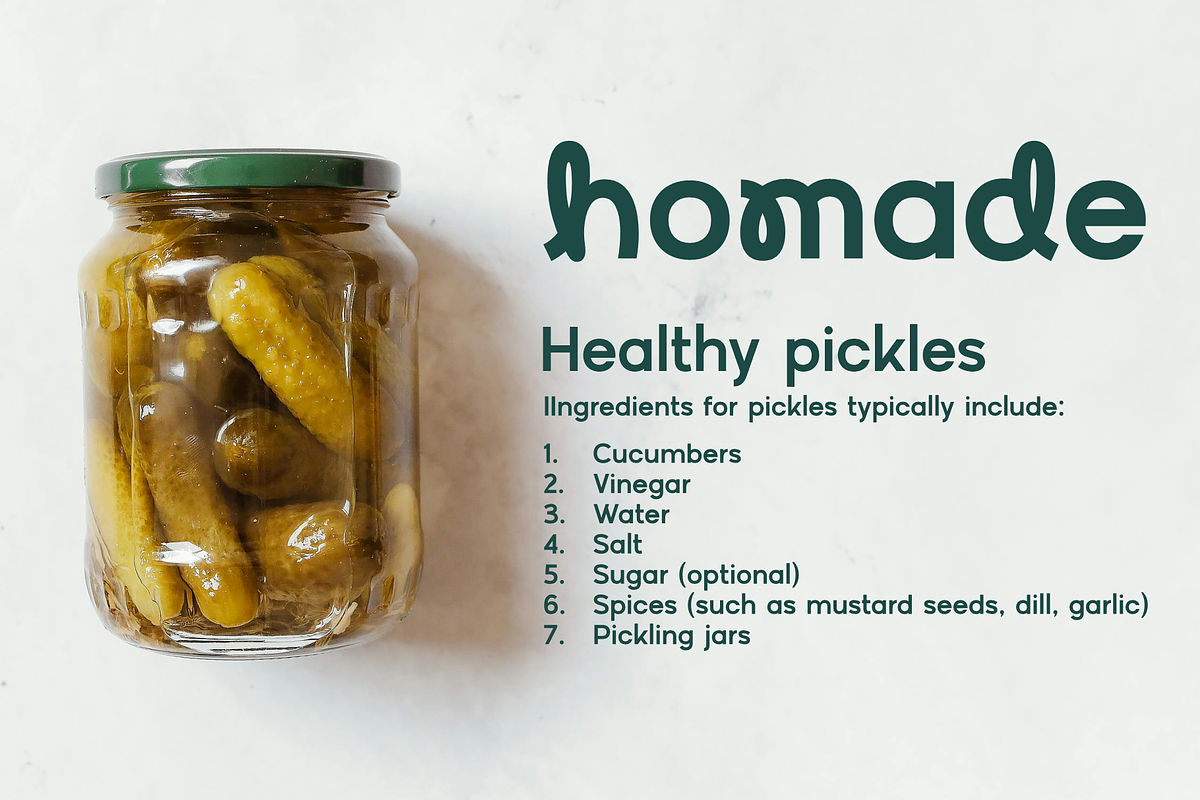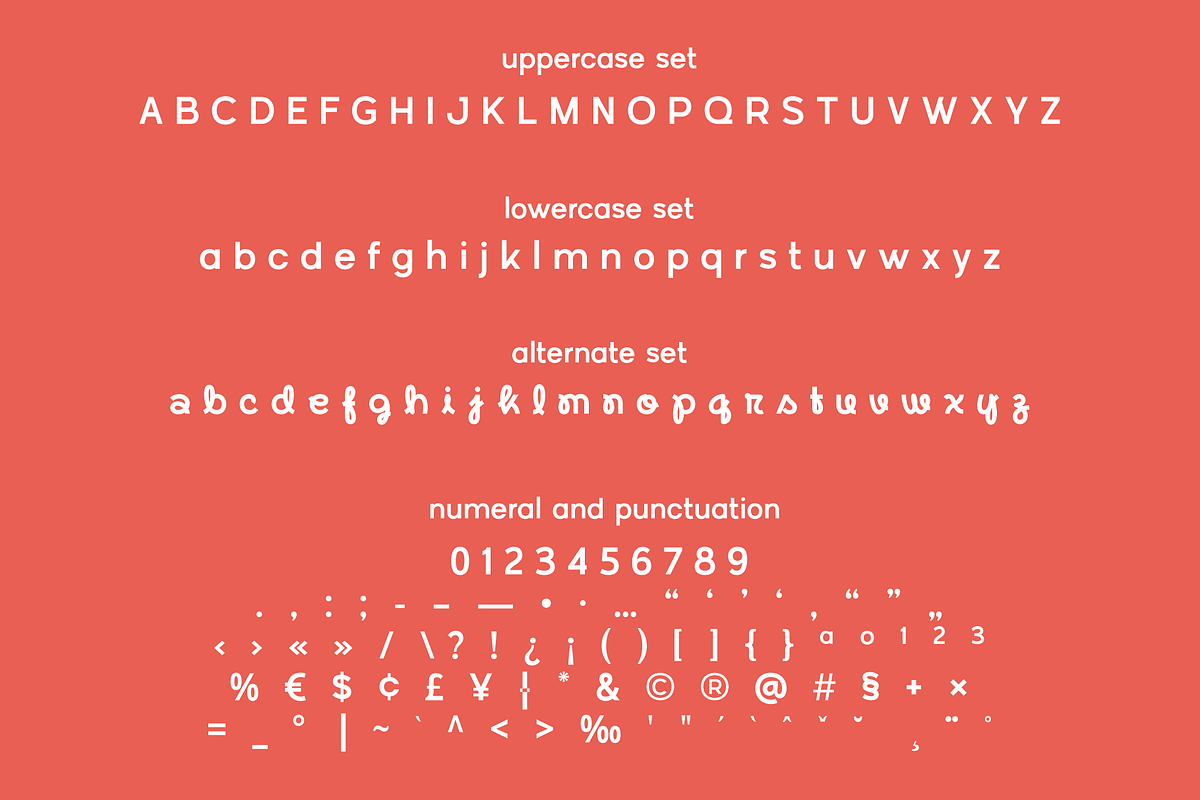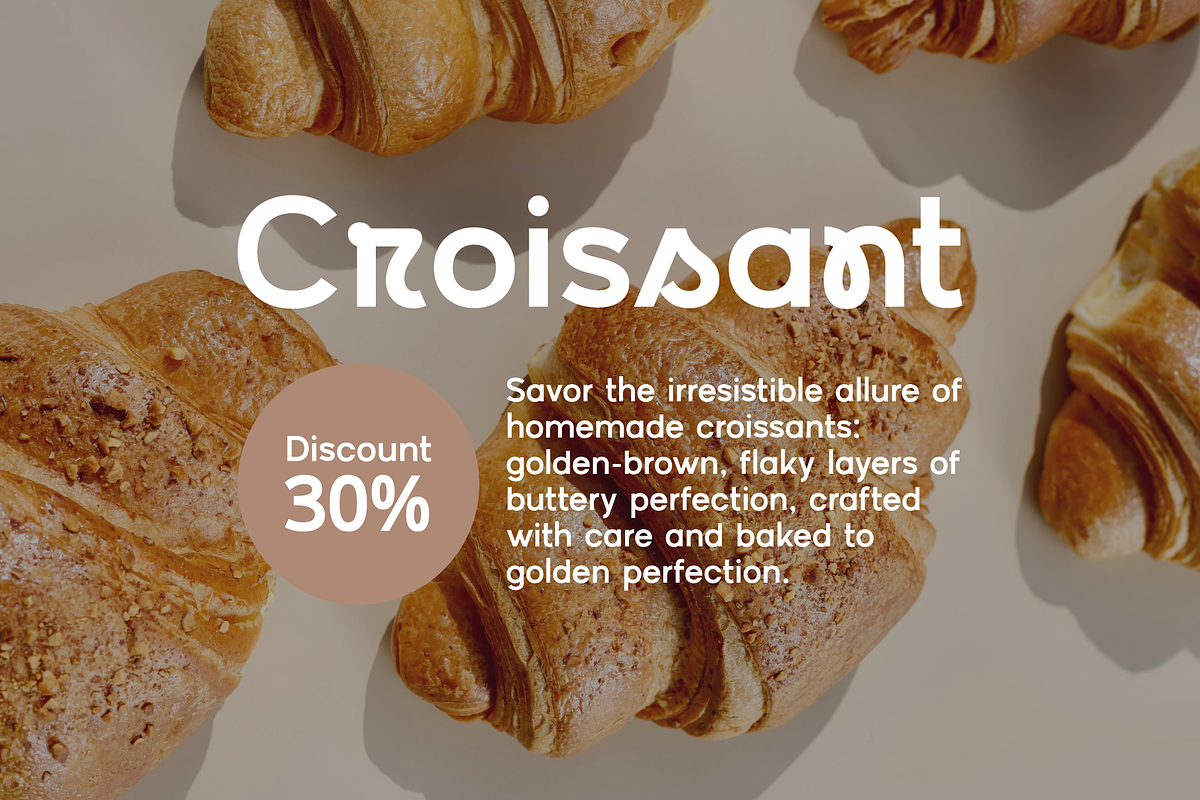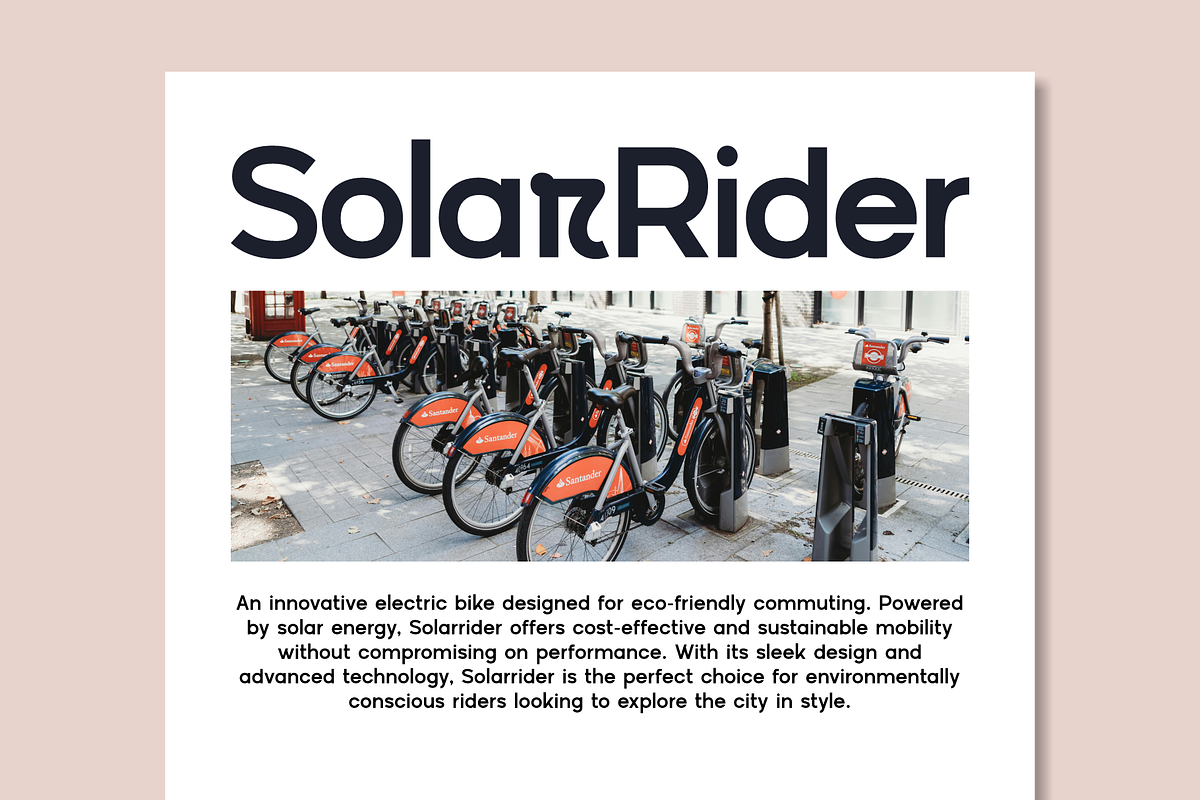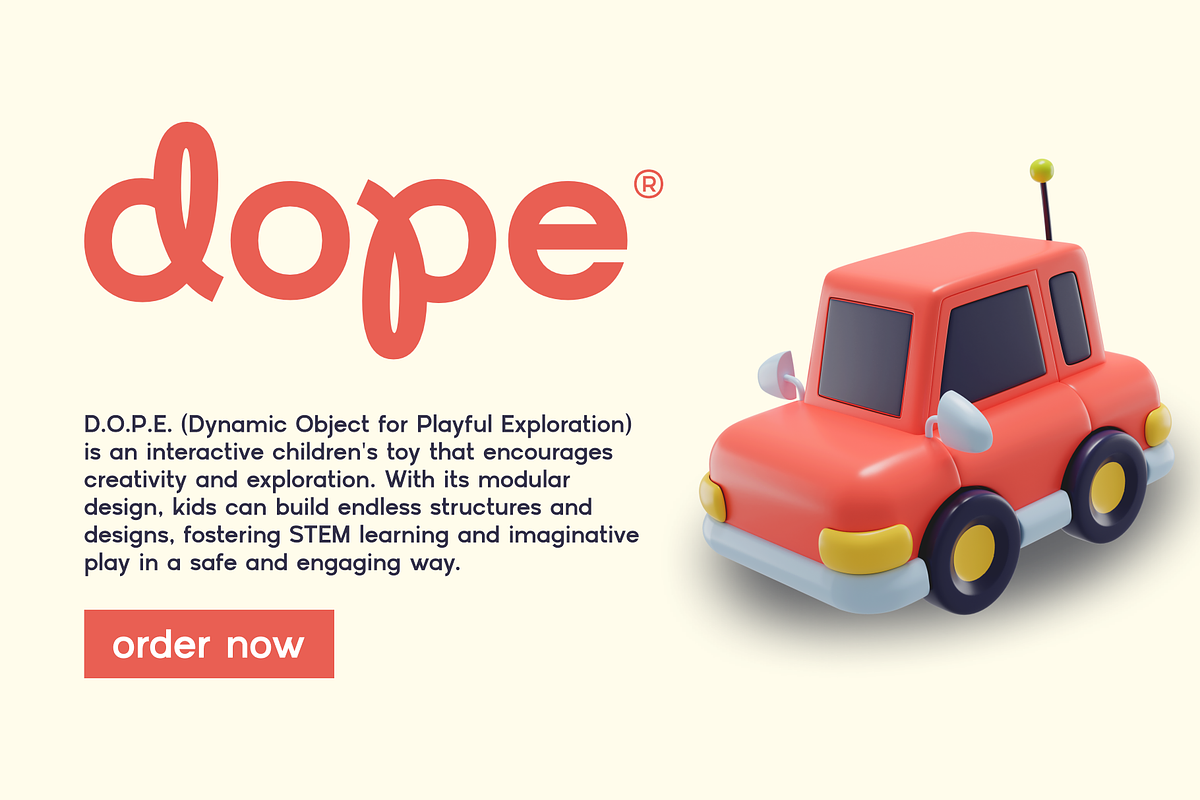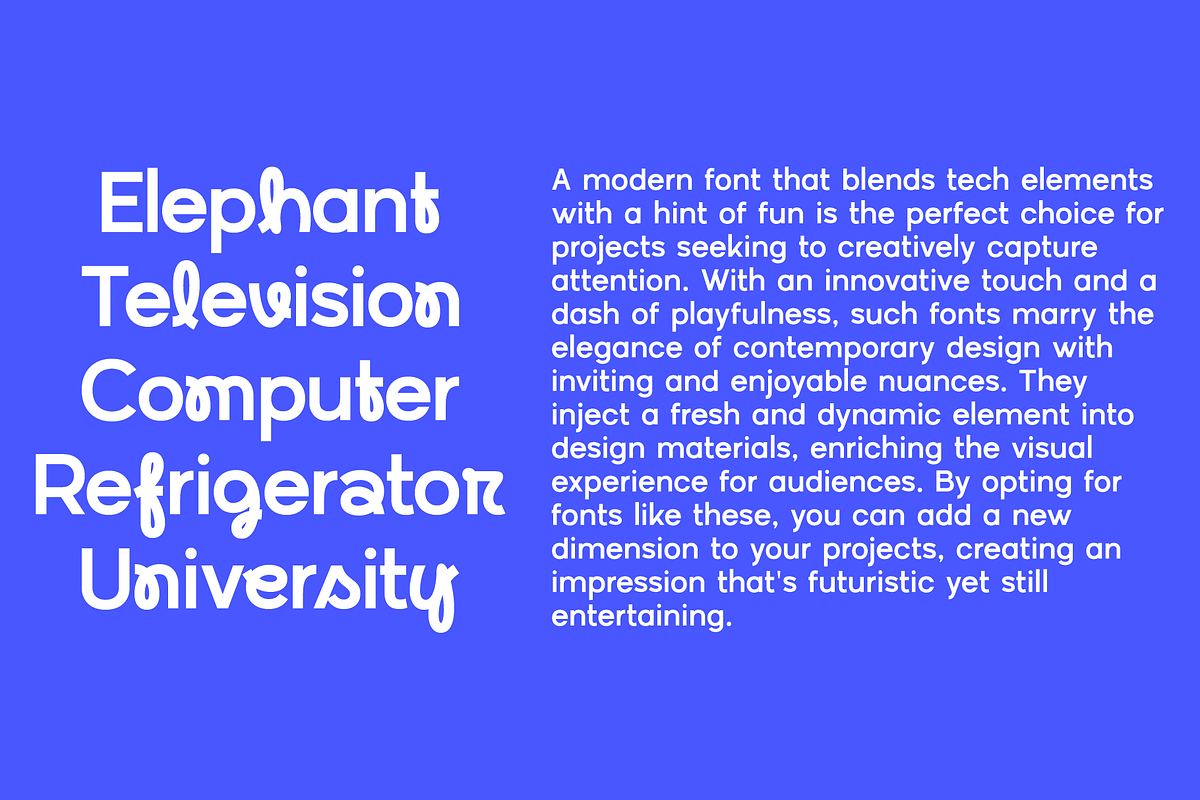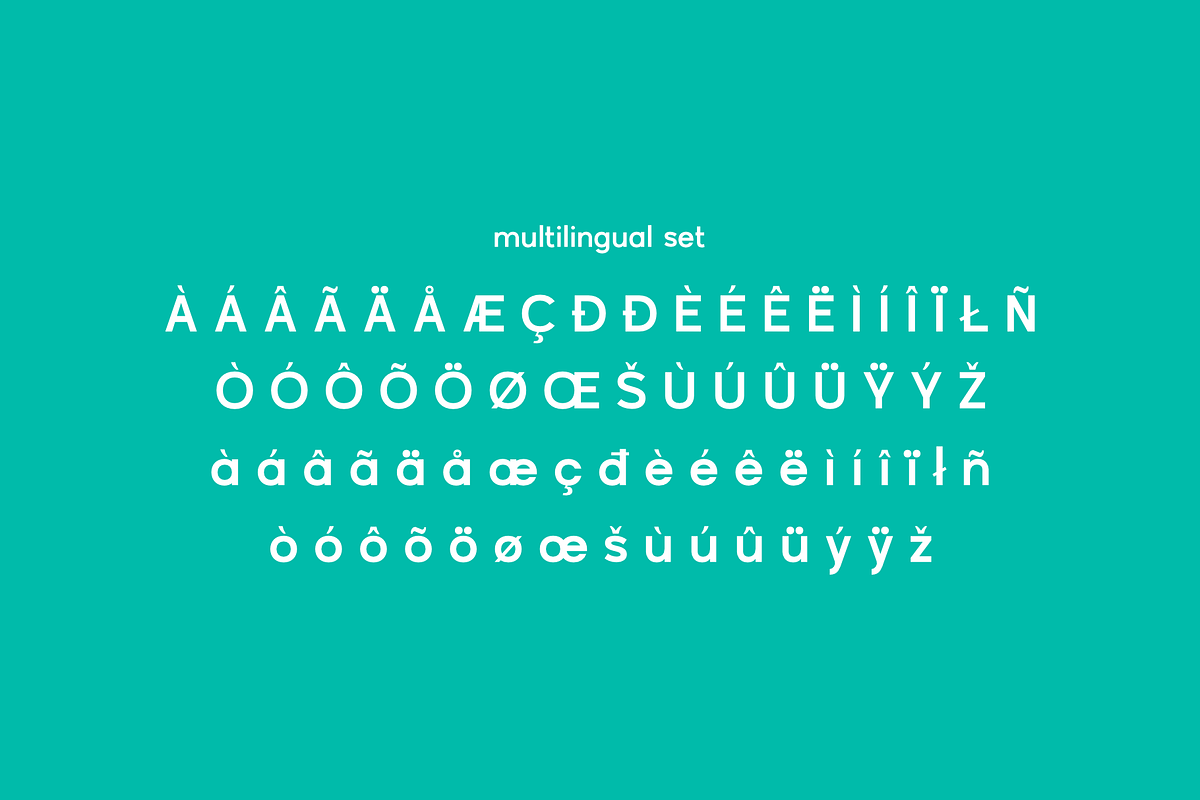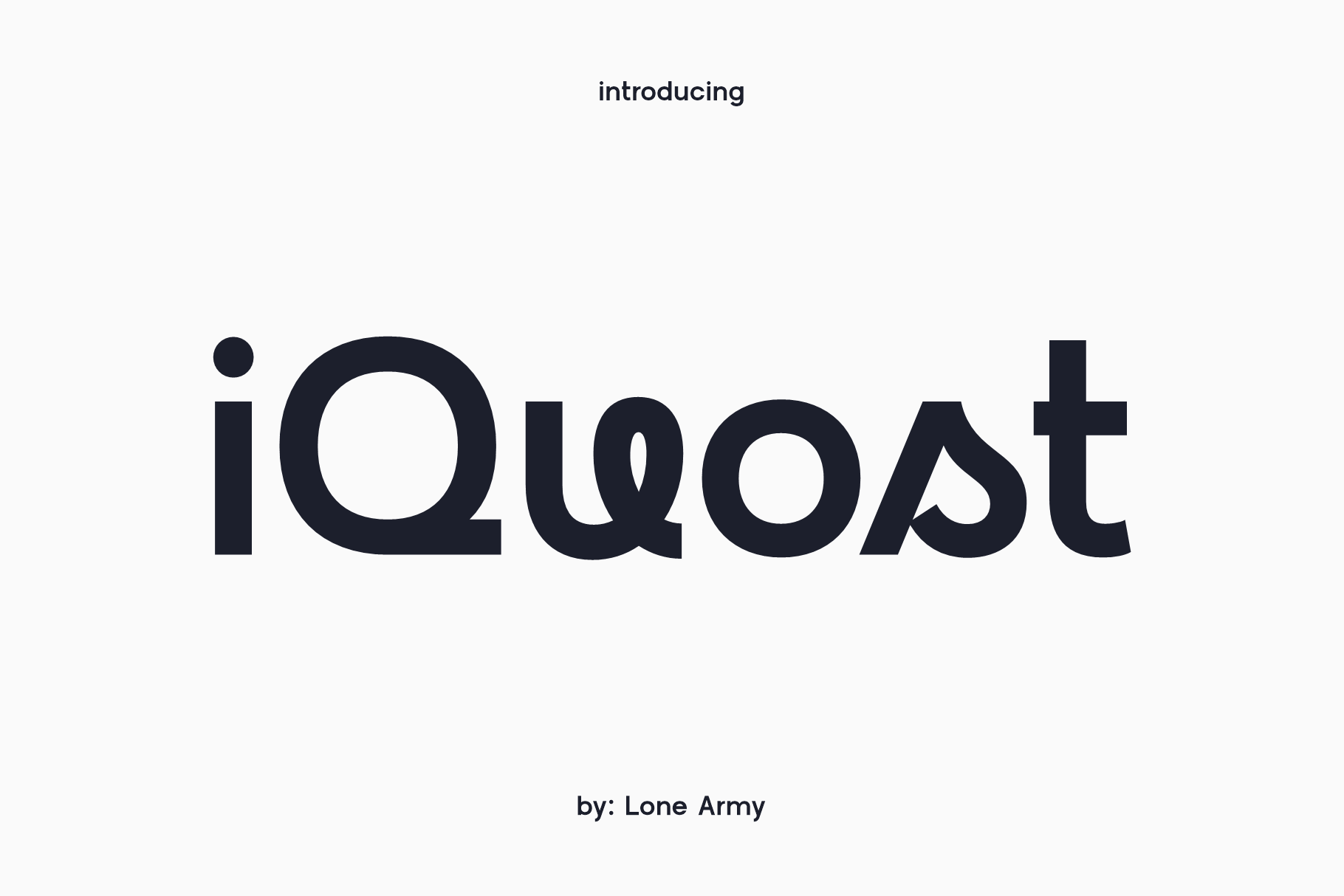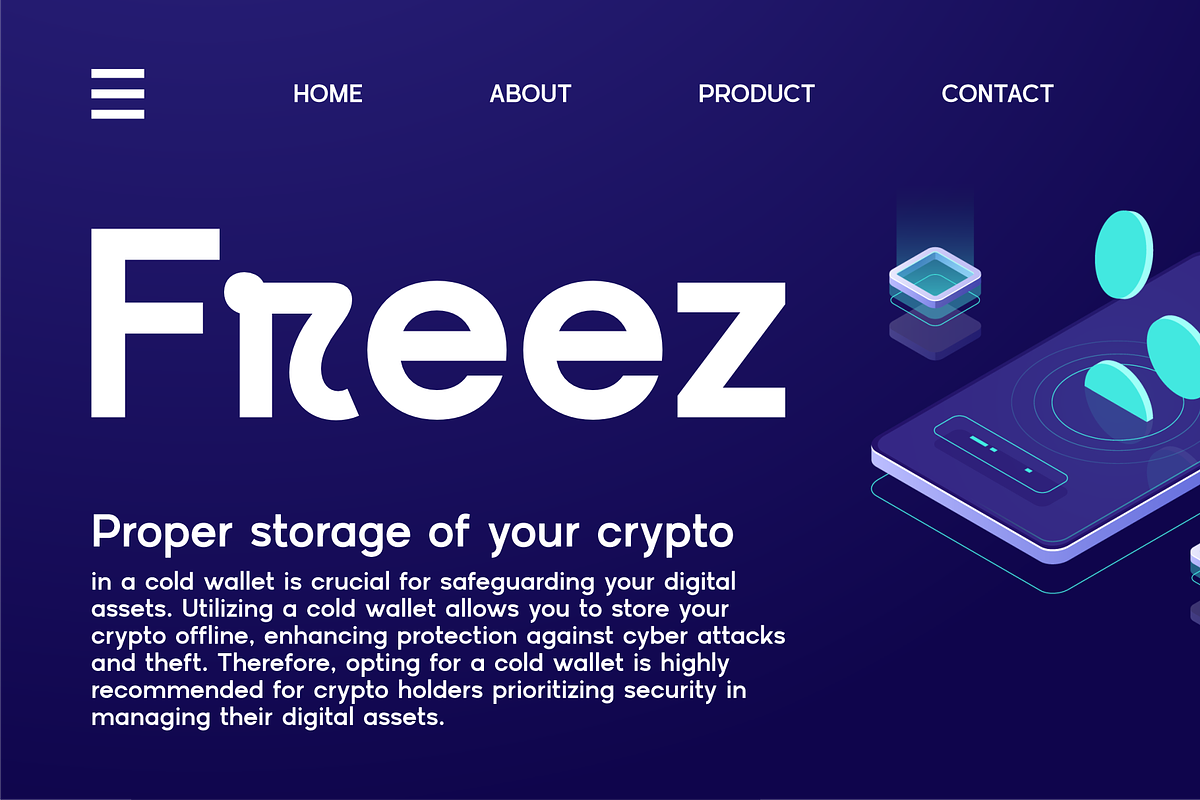
iQuost - experimental font
Iquost Font seamlessly merges modern sans-serif with playful script. With clean lines and soft curves, it strikes a perfect balance between professionalism and whimsy. Suitable for various design needs, it delivers messages with style and impact.